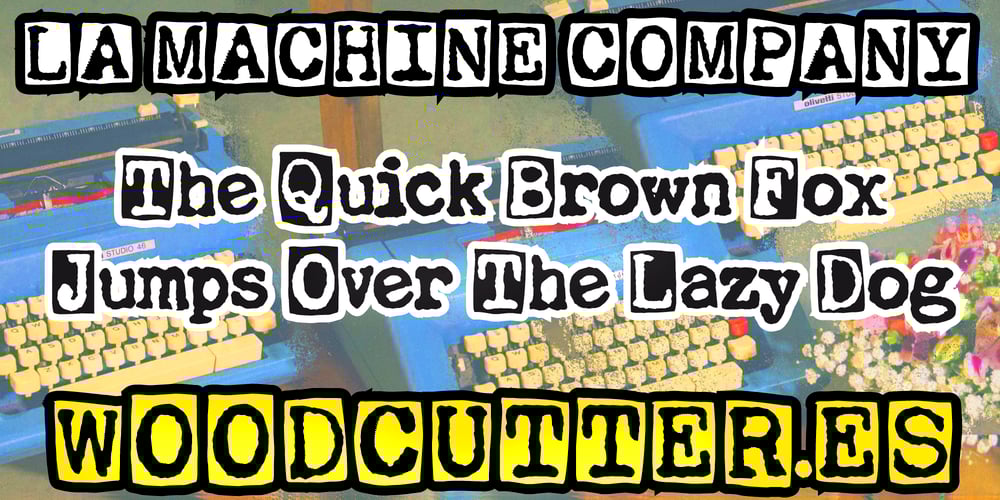
La Machine Company Font Family was designed by Jordi Manero and published by Woodcutter. La Machine Company contains 1 styles and family package options. “La Machine Company” is a font that evokes the nostalgic style of old typewriters, with a modern and worn touch. Each letter, marked by time and use, is carefully designed to look typewritten, offering an authentic and vintage appearance. The uppercase letters are inverted and encapsulated in black boxes, adding a striking contrast and distinctive aesthetic. Perfect for creative projects, posters, and retro designs, “La Machine Company” captures the essence of the past with a contemporary twist, providing a unique sense of combined history and modernity.